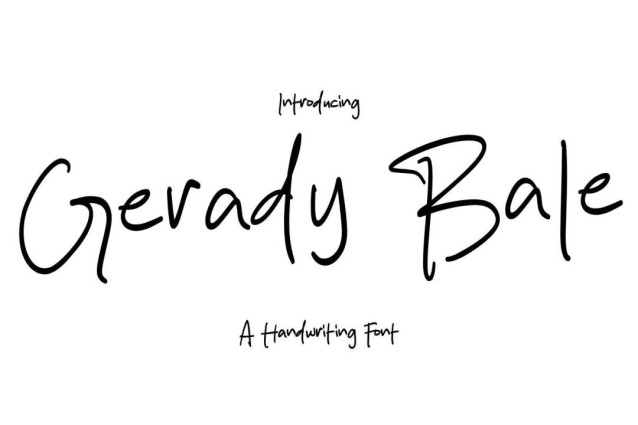
Gerady Bale Handwriting Font
Gerady Bale Handwriting Font is a simple and friendly handwritten font. Its natural and unique style makes it incredibly fitting to a large pool of designs. The only limit is your imagination!